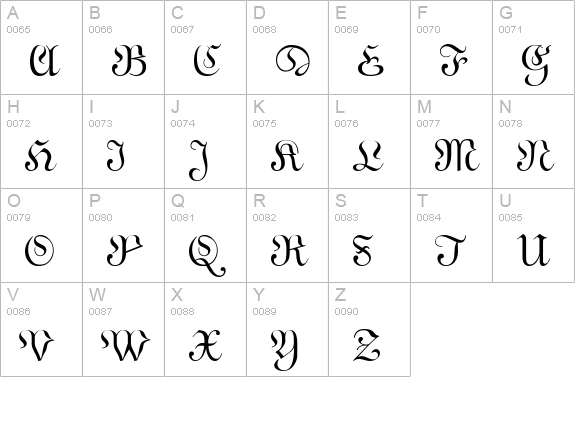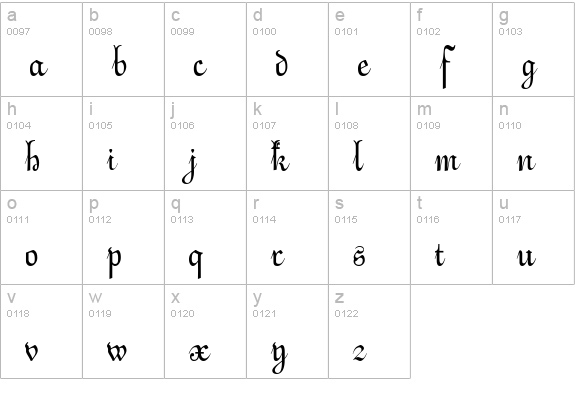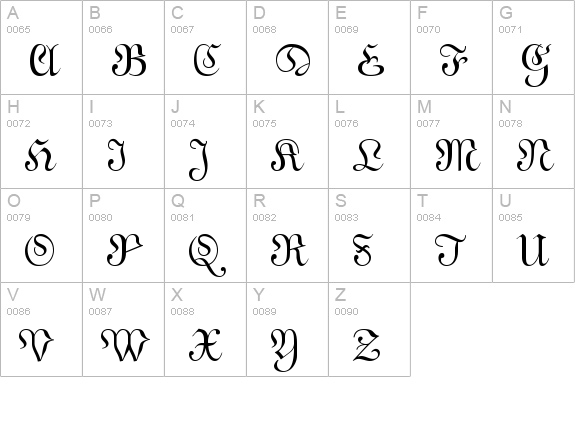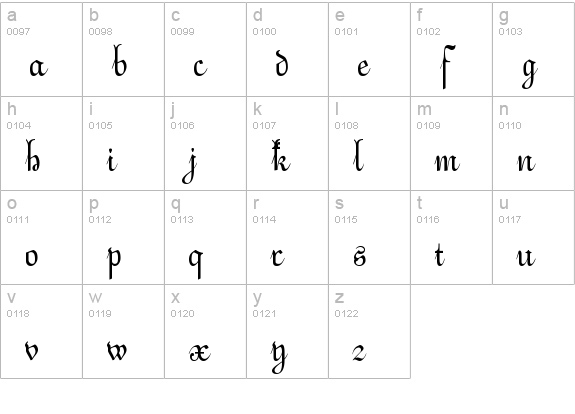
AlsaceLorraine Font Details
AlsaceLorraine font is a beautifully designed typeface that exudes elegance and sophistication. Its graceful curves and intricate details make it perfect for adding a touch of class to any design project. This versatile font is ideal for a wide range of applications, from invitations and branding to packaging and editorial design. What sets AlsaceLorraine font apart is not just its stunning aesthetics, but also its availability as a free download at FontsMarket.com. This means that you can easily access and use this exquisite font in your projects without any cost. Whether you're a professional designer or a hobbyist, AlsaceLorraine font offers you a high-quality typographic solution that won't break the bank. Download AlsaceLorraine font today from FontsMarket.com and elevate your designs with this free, sophisticated typeface.